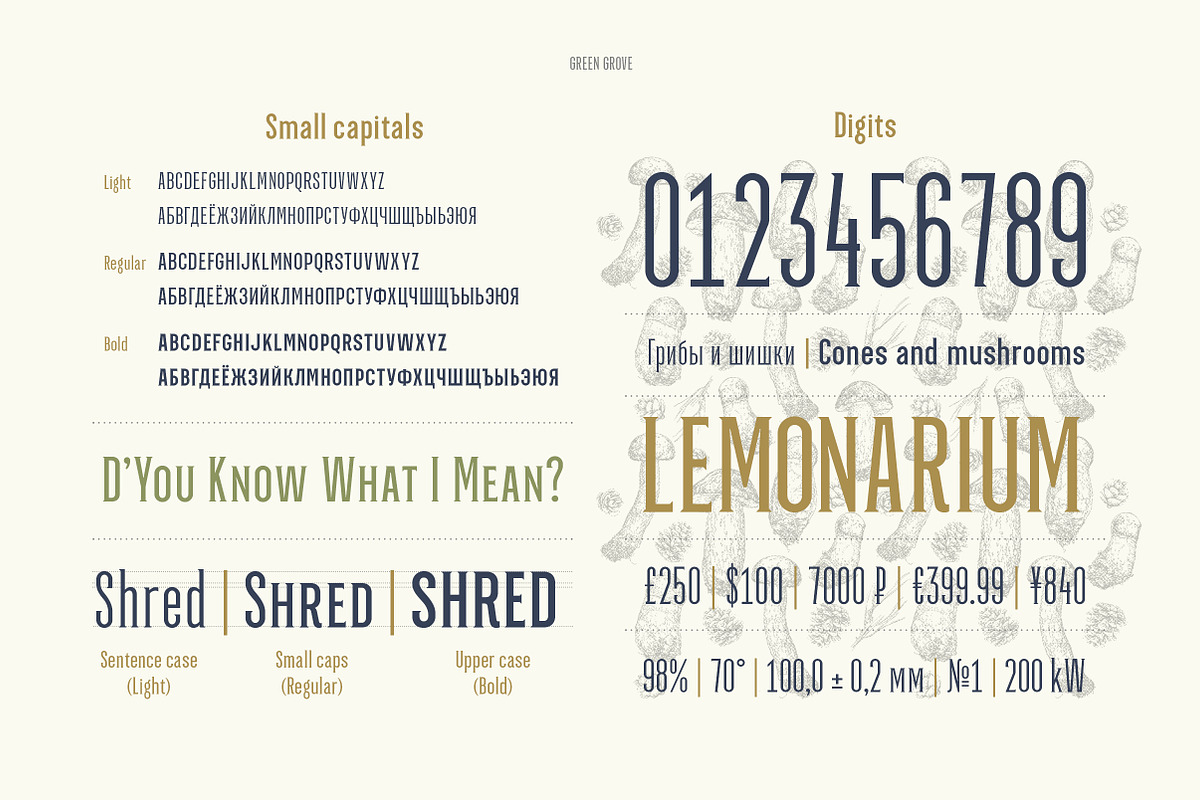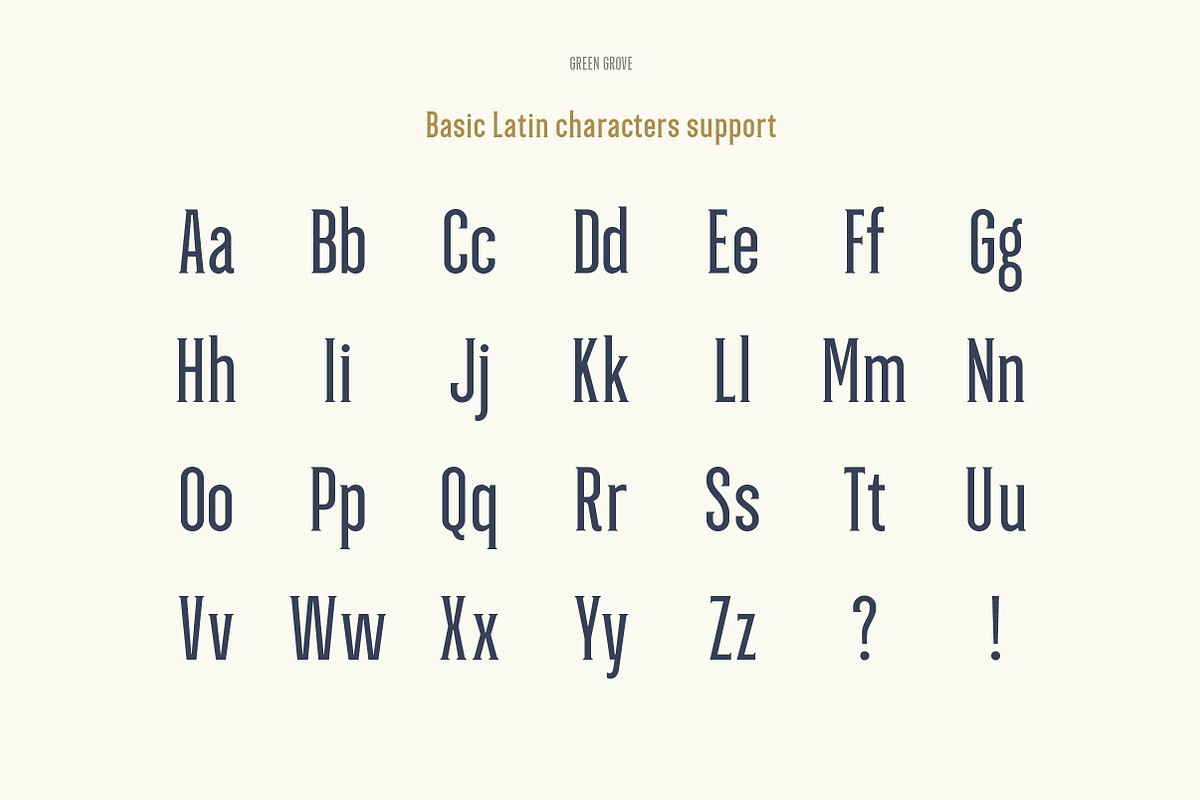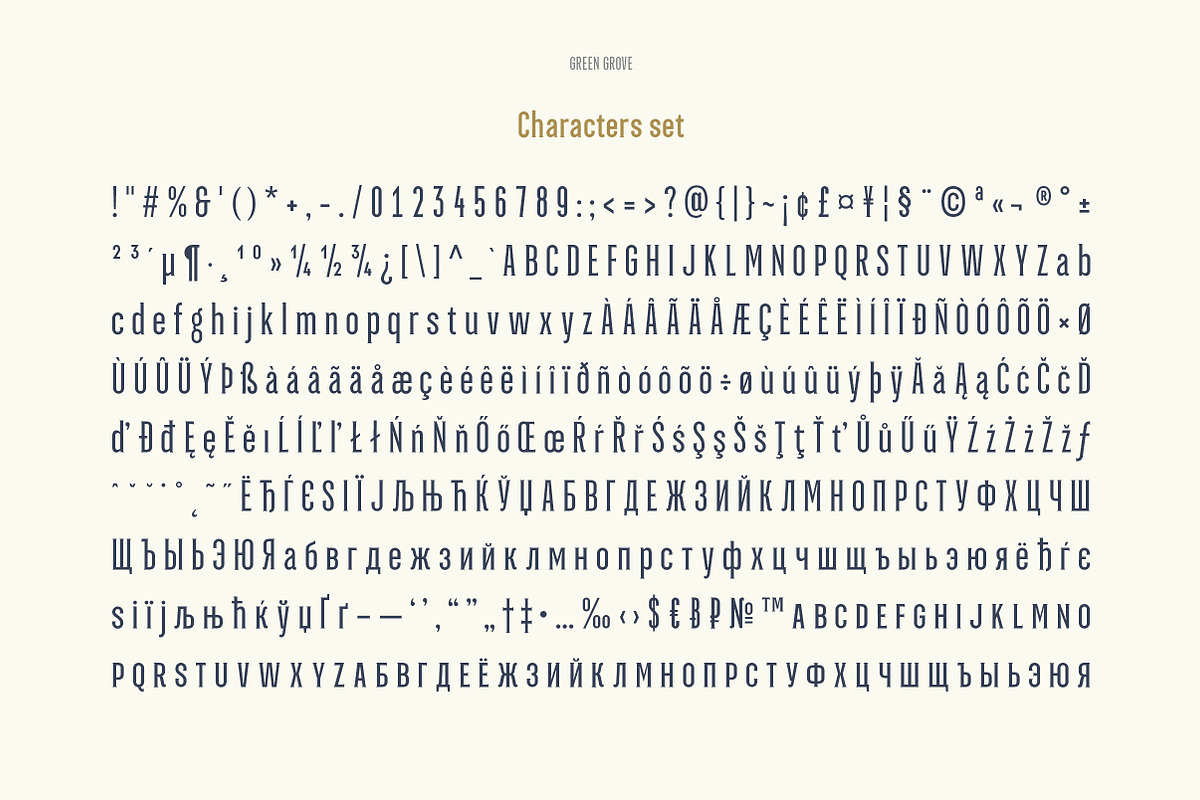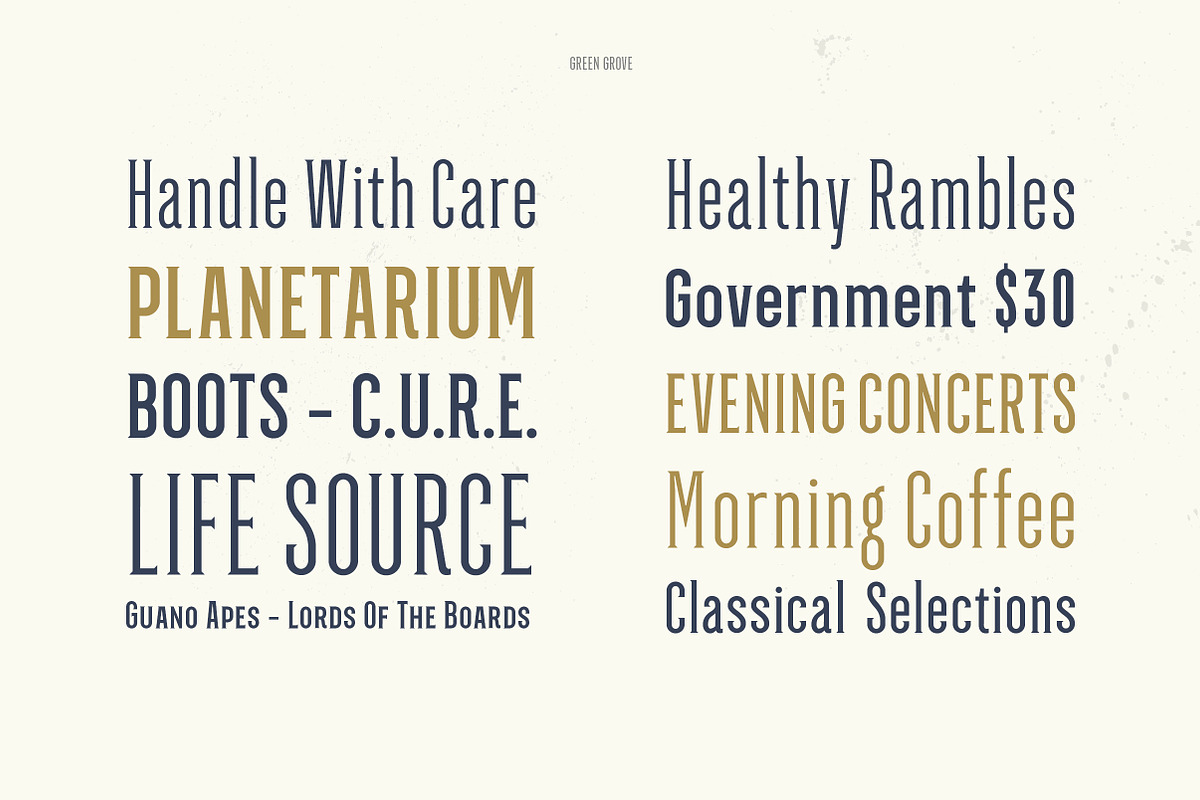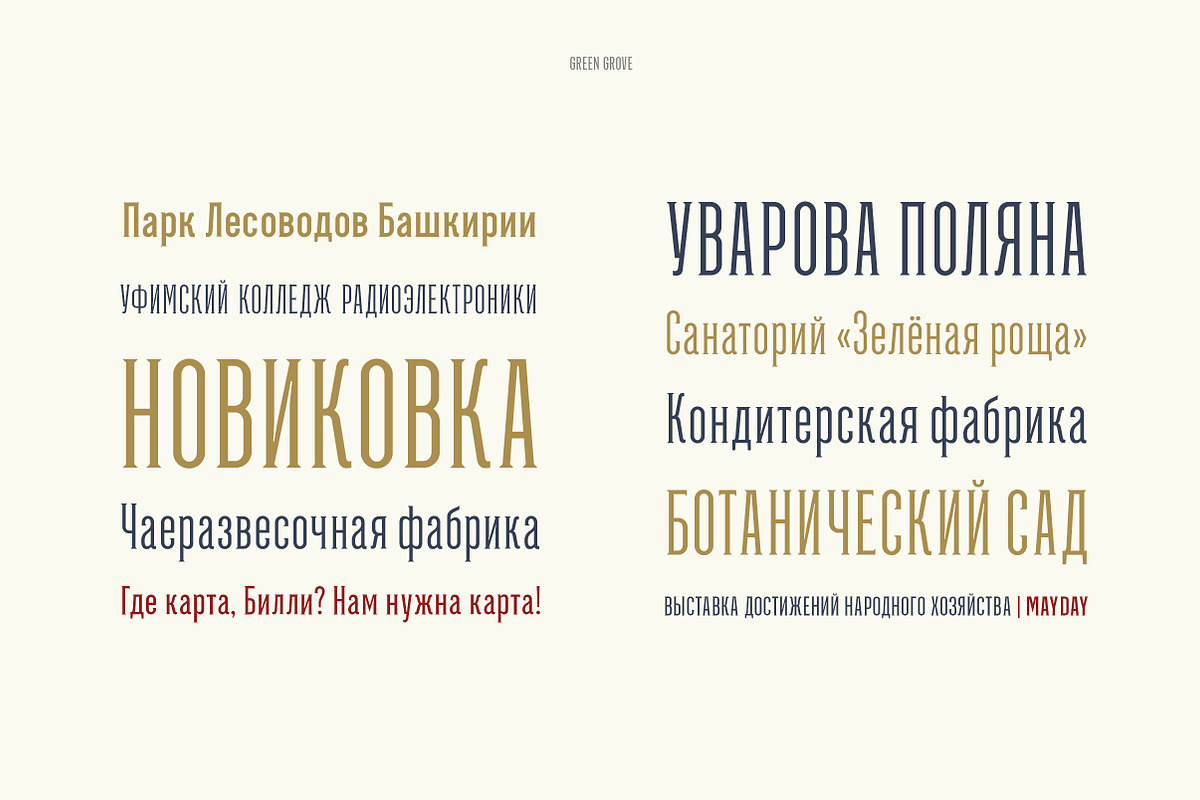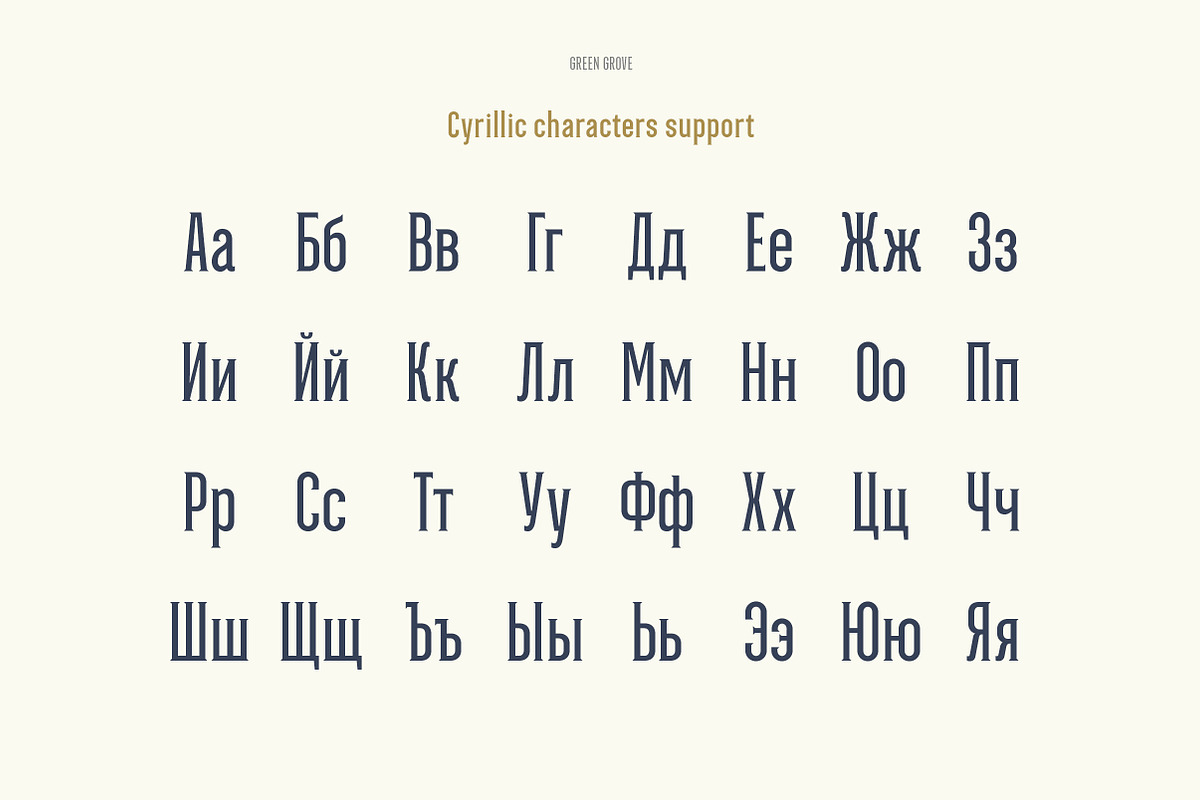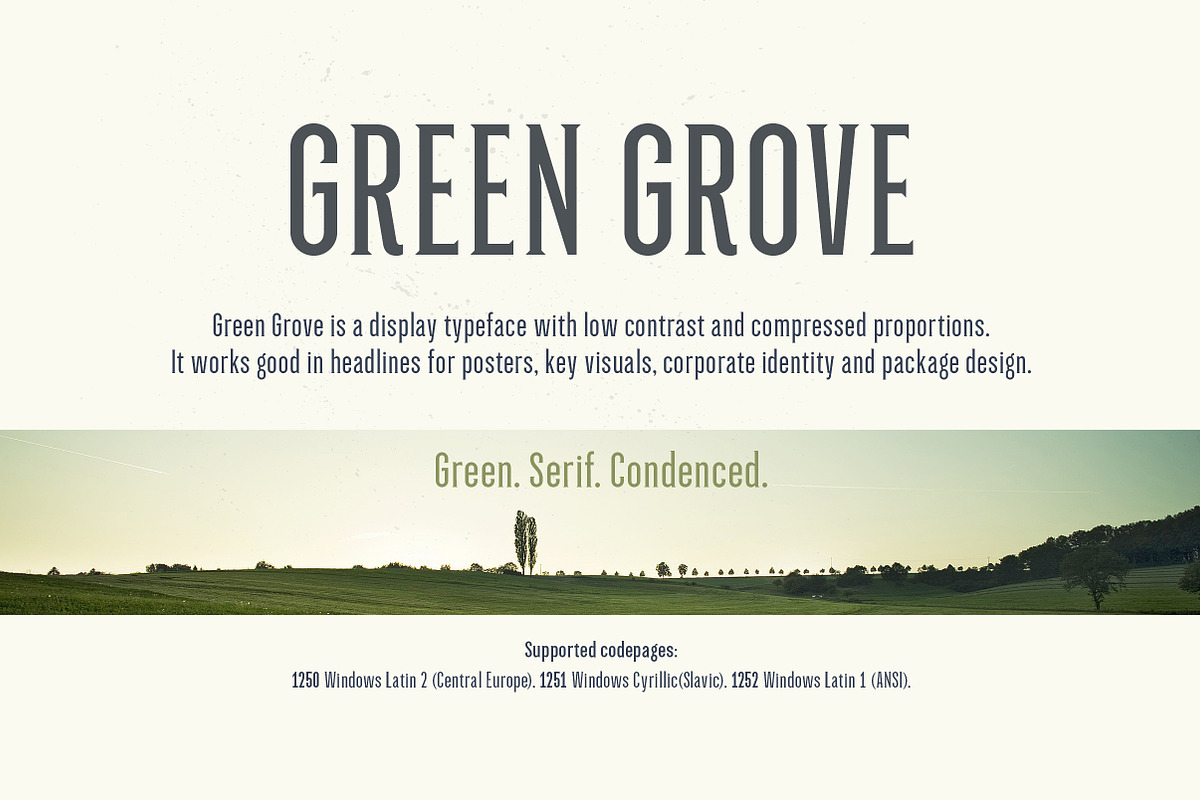
Green Grove // 3 fonts
Green Grove is a display typeface with low contrast and compressed proportions. It works good in headlines for posters, key visuals, corporate identity and package design.
- GreenGrove Light
- GreenGrove Regular
- GreenGrove Bold